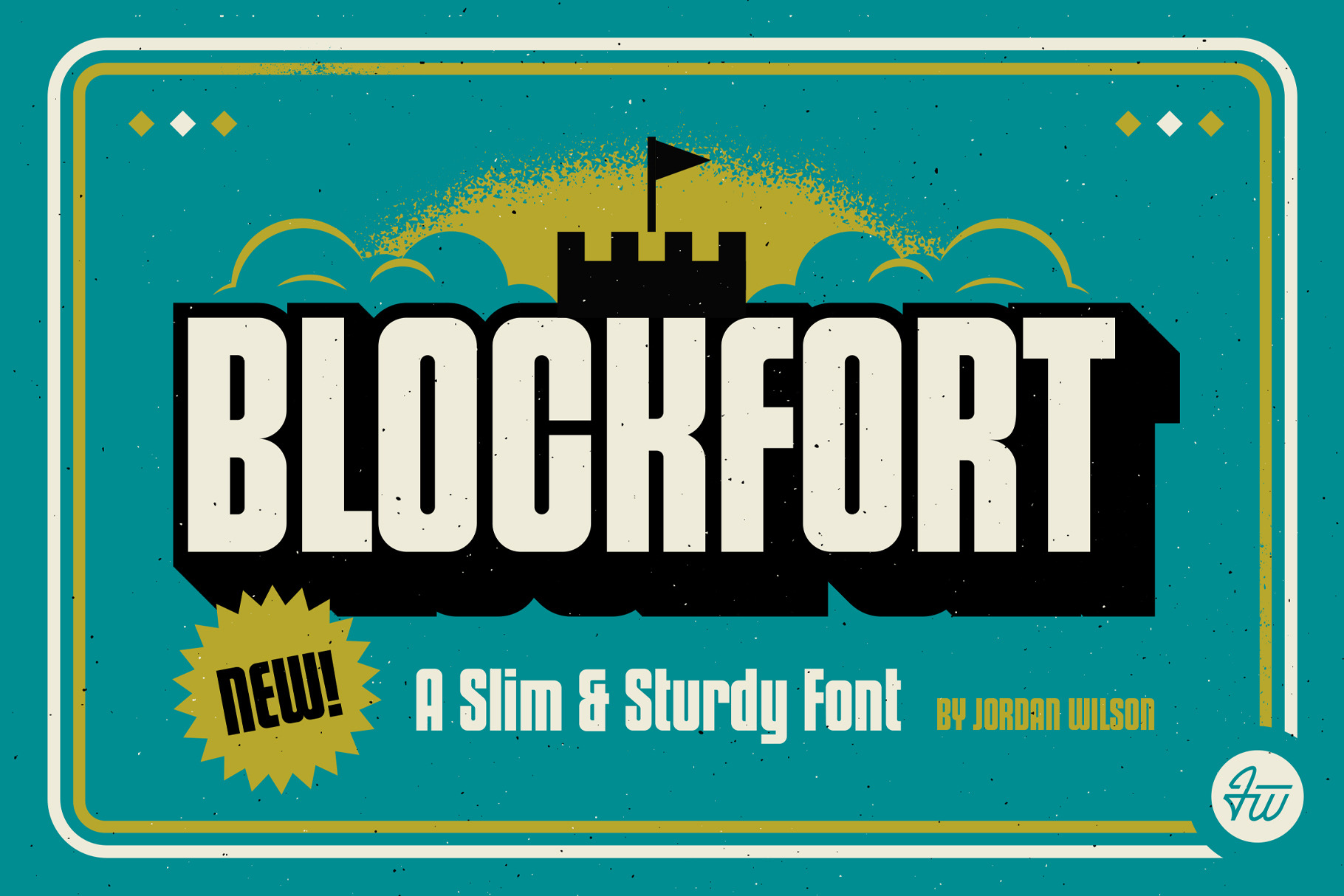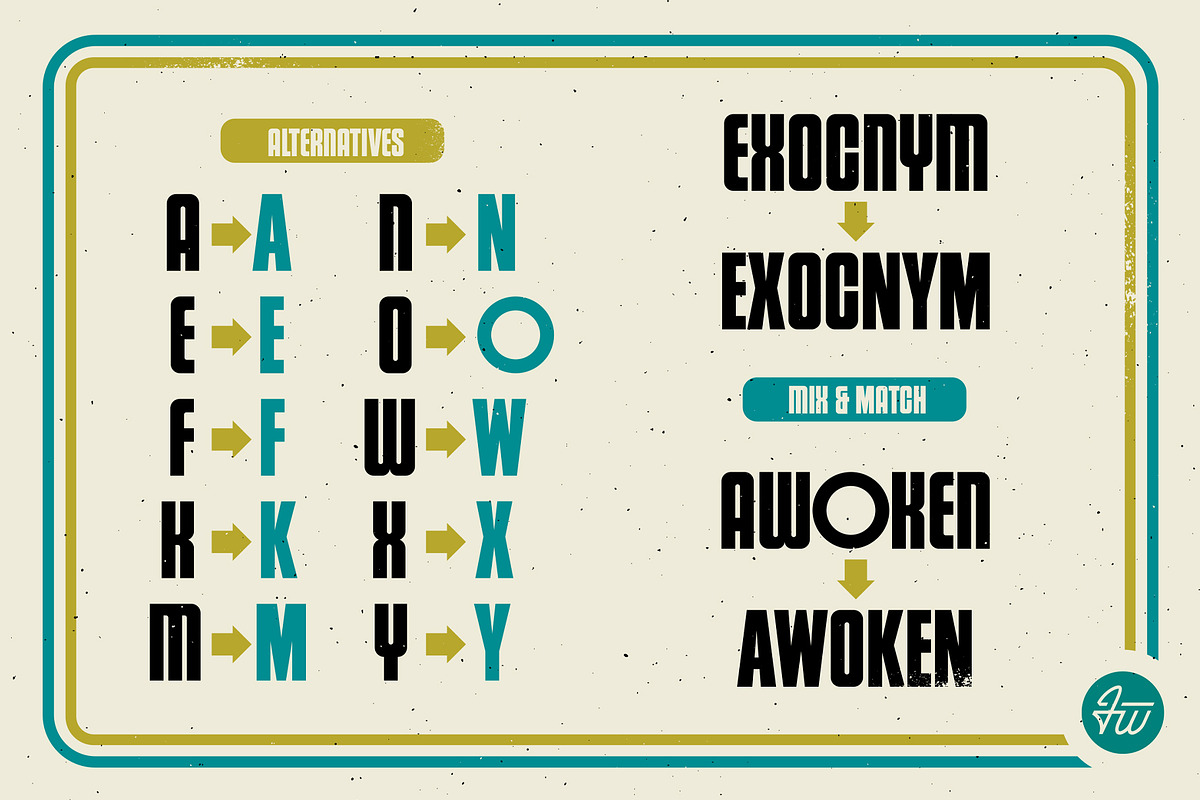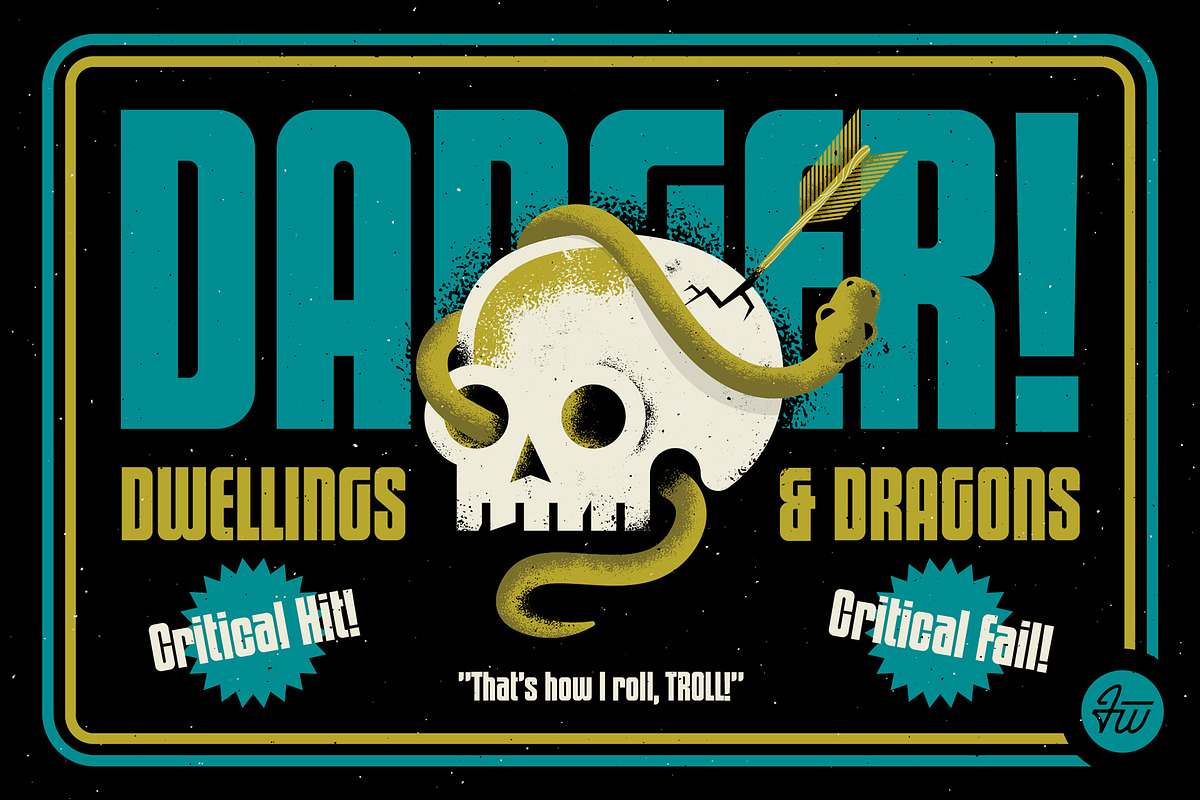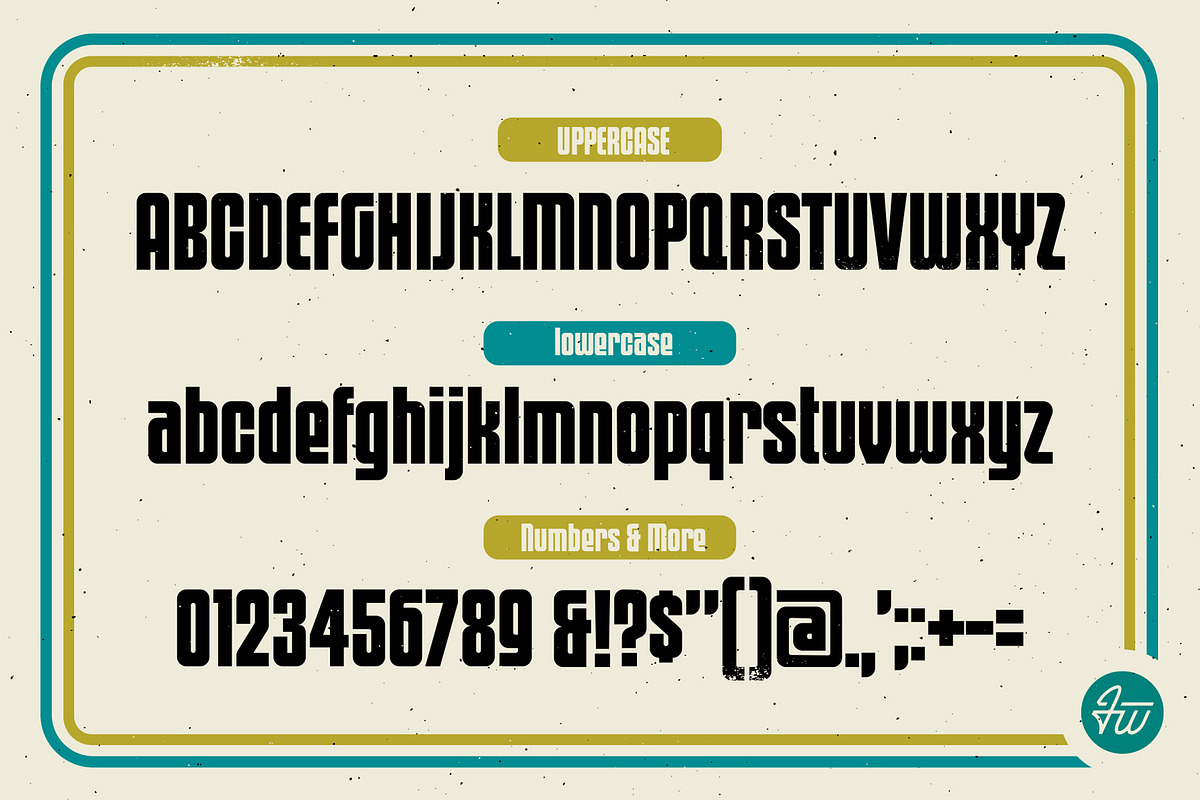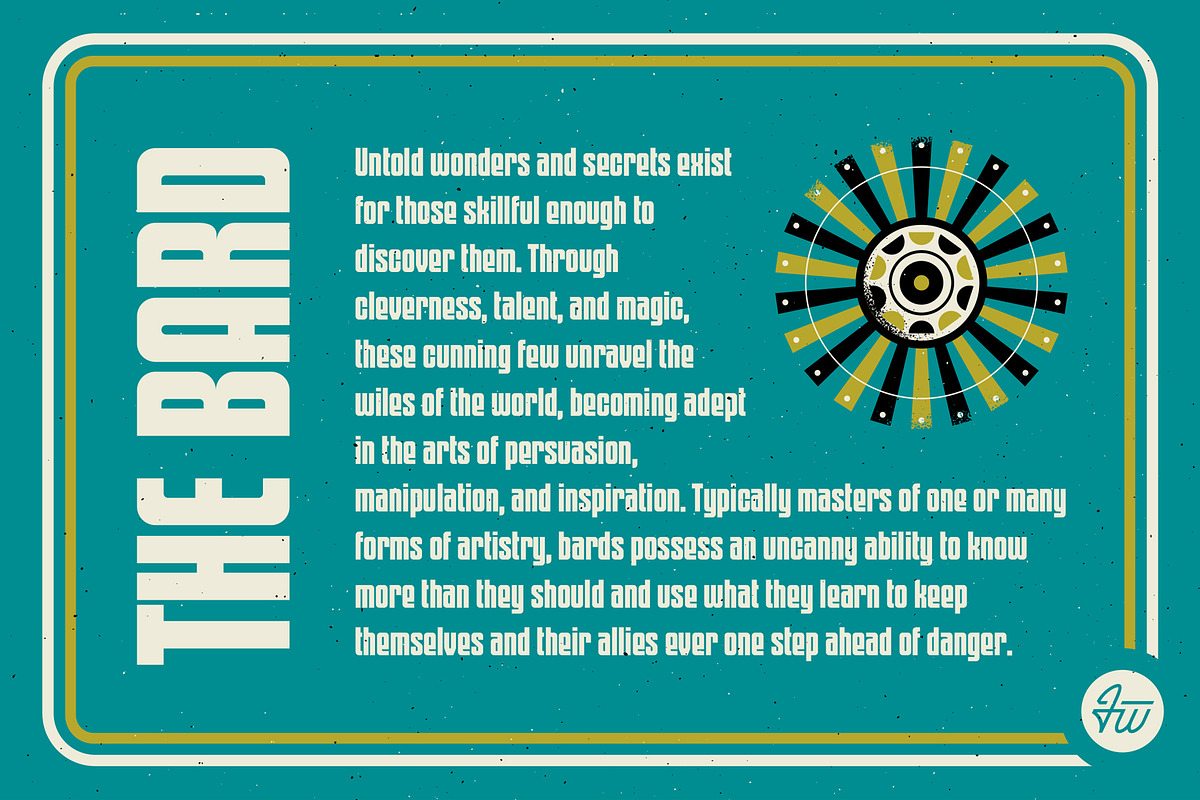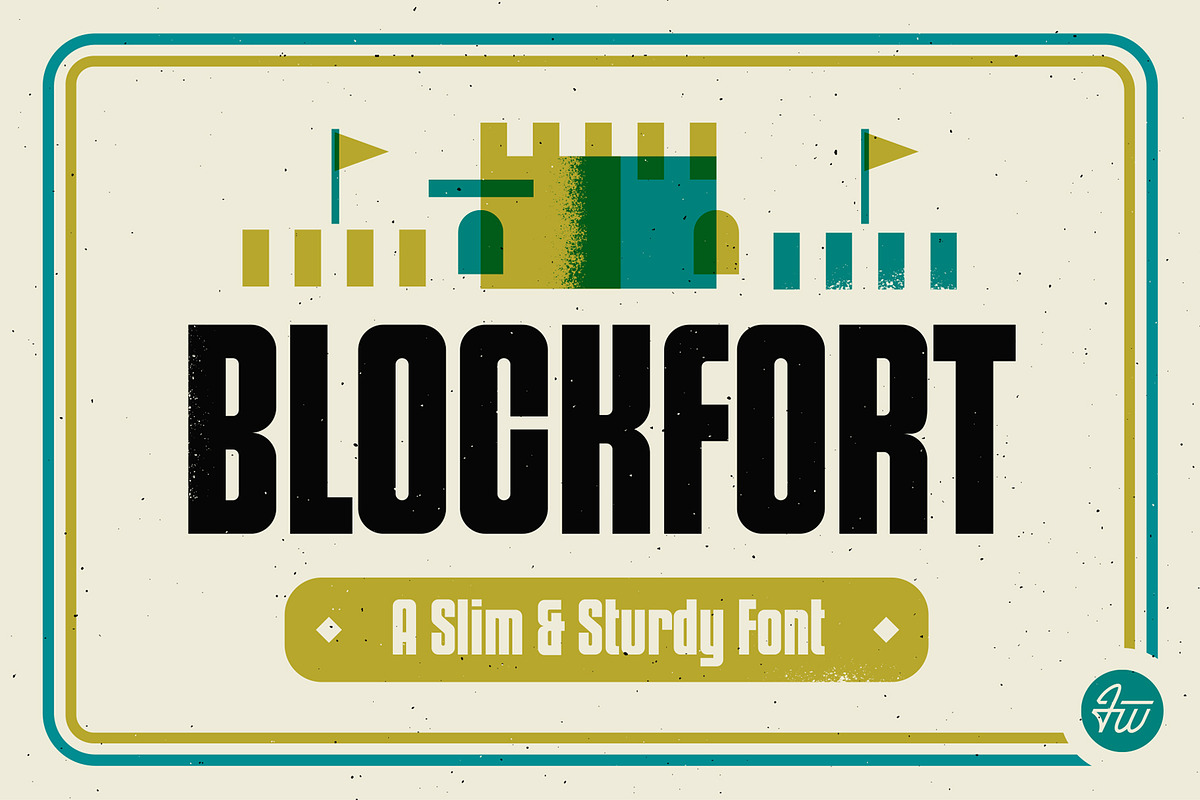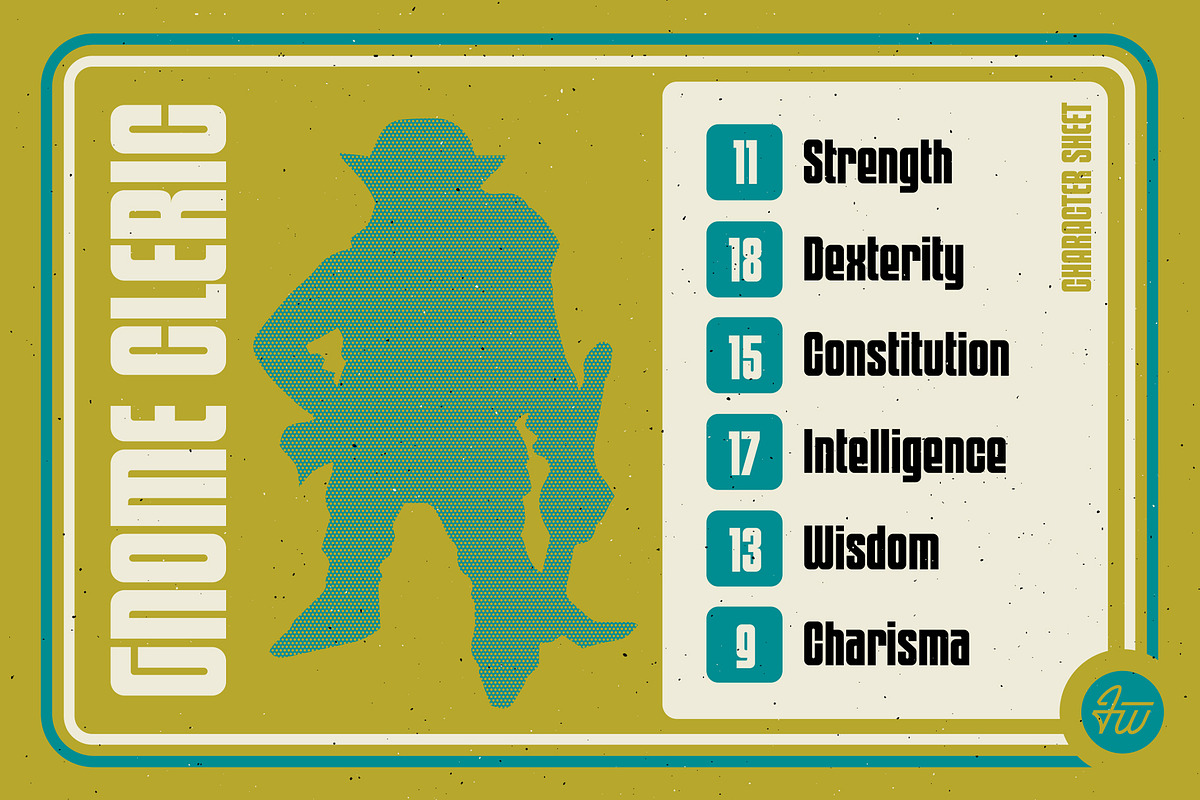
BLOCKFORT | Condensed Font
Blockfort is a fuss-free, barbrian-strength typeface built to plug into any creative adventure you're DM-ing (Design Master). Its slim form and sturdy build allows it to play as the ultimate multiclass; providing your work the needed hero display or support range it requires - and with its large range of alternatives, you can spend hours getting lost in the "character creation".
- Full set of uppercase letters
- Full set of lower case letters
- Large range of punctuation
- Numerous Character Alternates